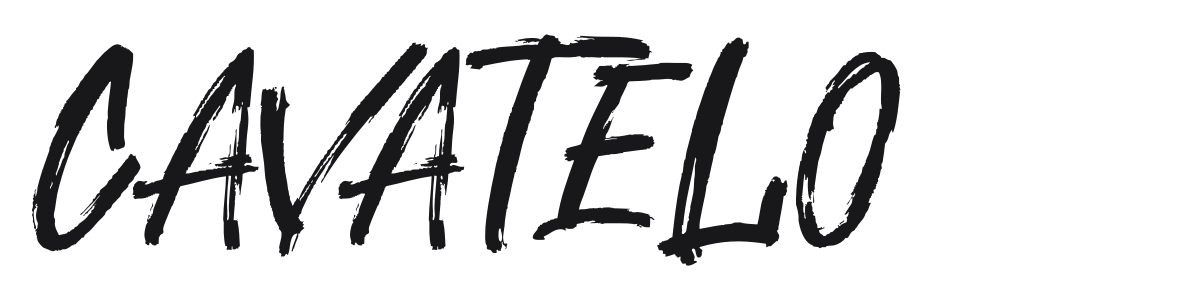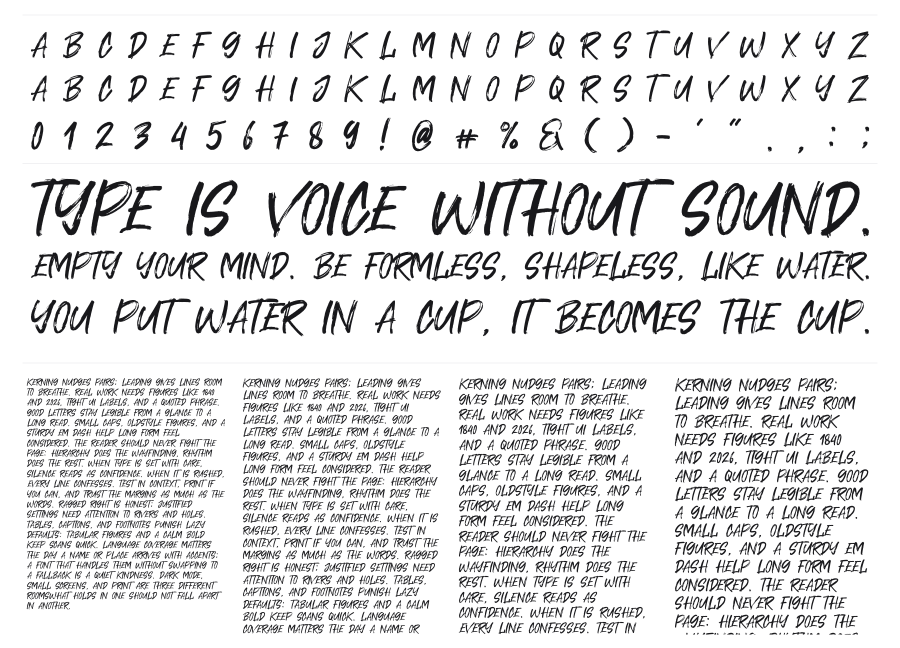
Cavatelo
Cavatelo is a bold ink-brush script with heavy, splintered strokes and a raw, hand-painted energy. The rough texture and irregular ink-drag marks give it an authentically urban, street-art quality rather than a polished calligraphic look. Works well for concert posters, streetwear branding, and anything that needs attitude at large sizes.